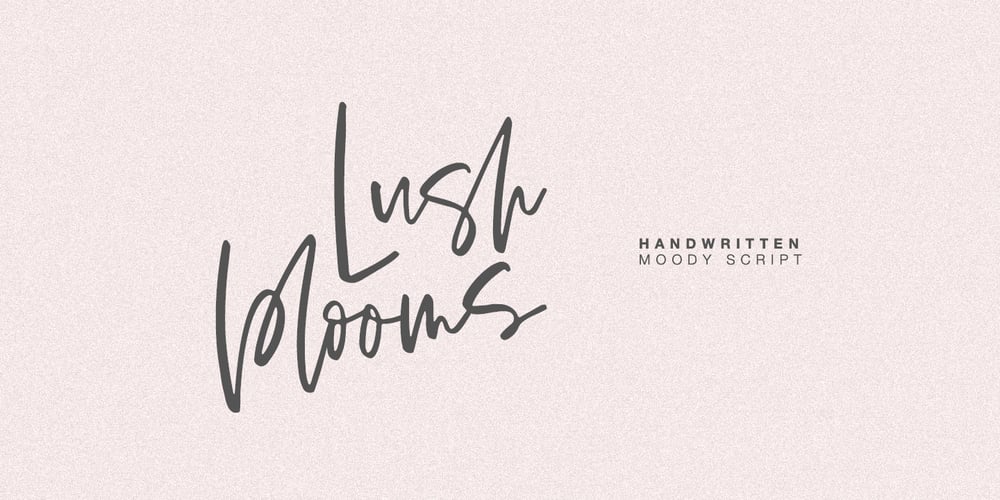
Lush Blooms Font Family was designed by Dmitrii Chirkov and published by Supfonts. Lush Blooms contains 1 styles and family package options. I keep experimenting with handwritten fonts, shapes and lines. I want the font to set the tone, the atmosphere, and look like an inscription made in a hurry, but still readable. Try my new font, I think it combines all these qualities. Simple and clear, looks at ease. It is perfect for signatures or design when you do not need a strict style. Includes: Uppercase and lowercase Numbers and punctuation Foreign language support Ligatures Check out my blog: https://www.instagram.com/zloillev pinterest.com/dmitriychirkov7